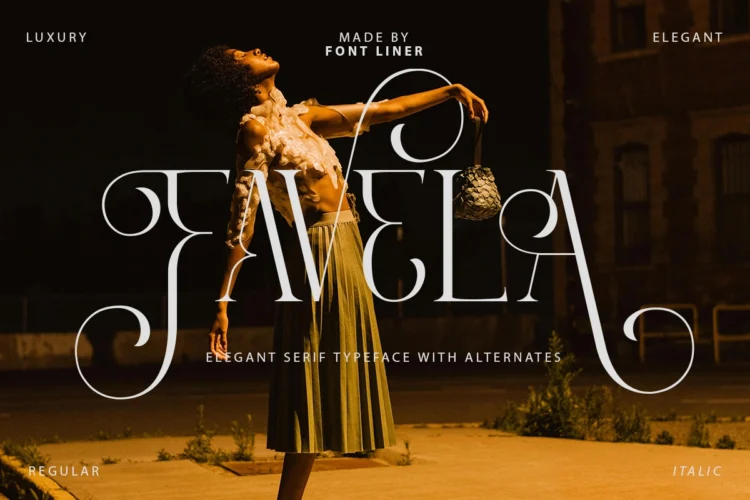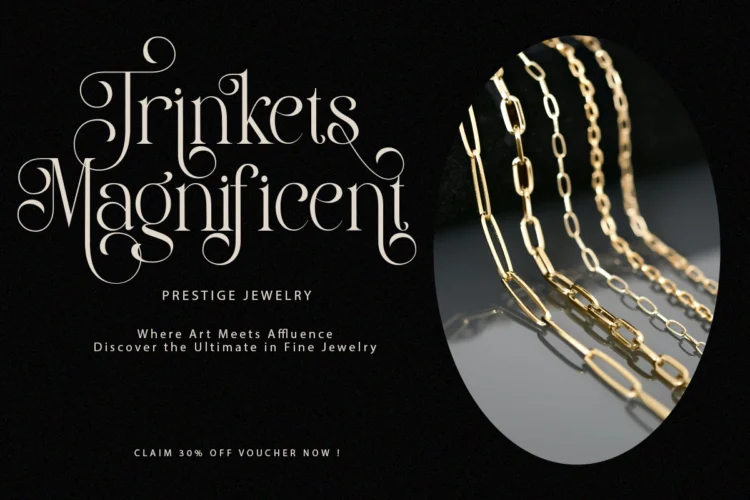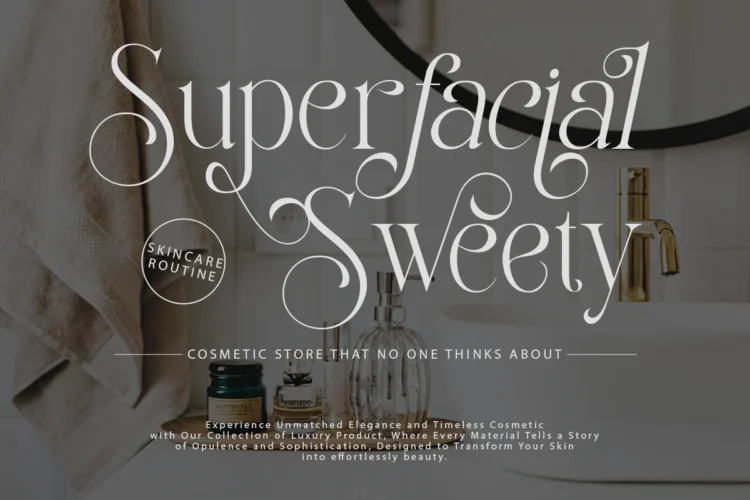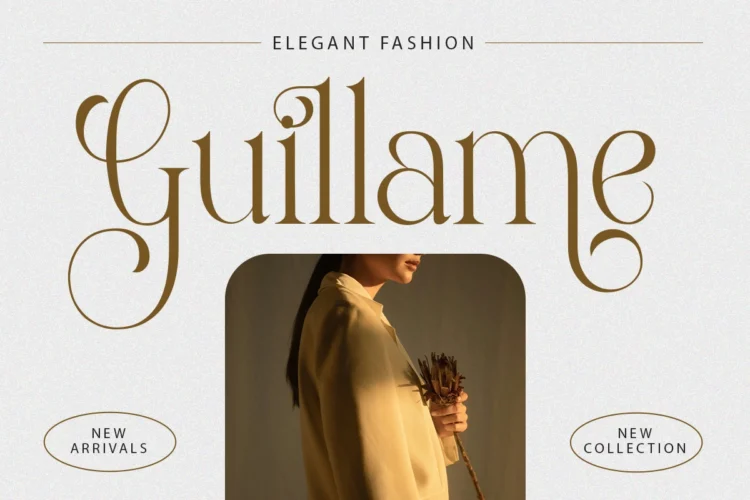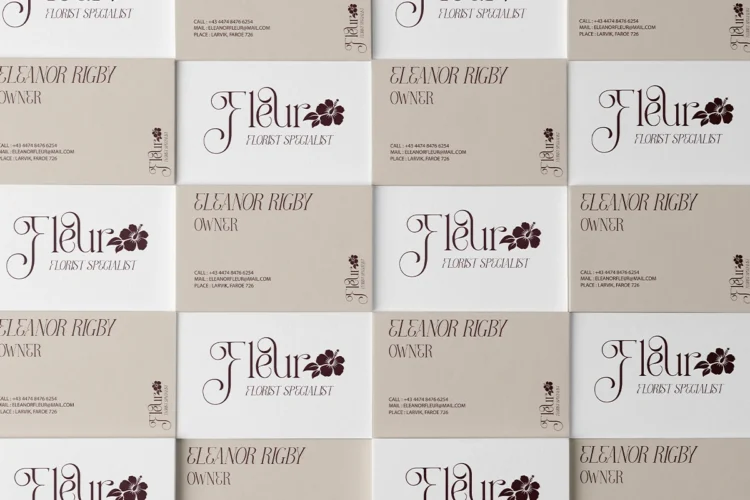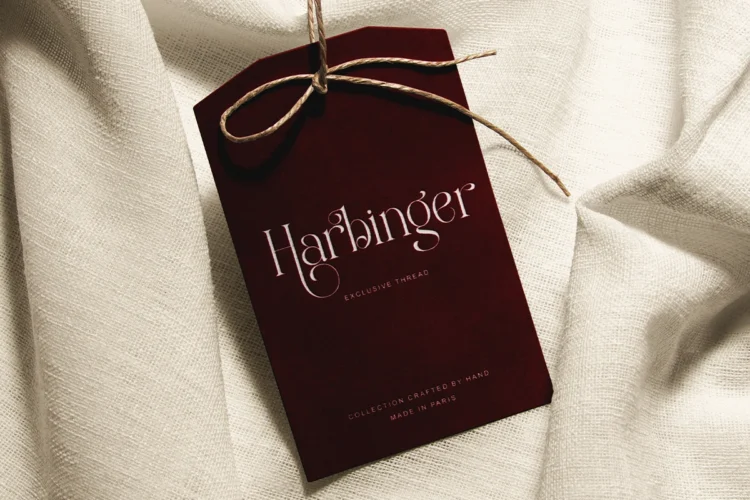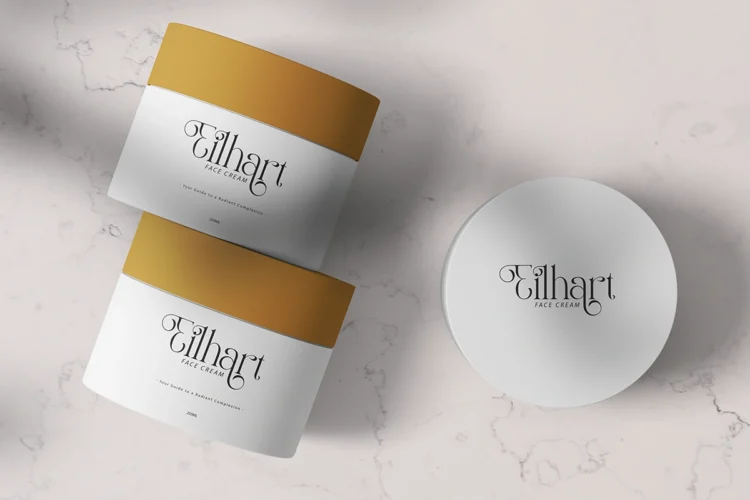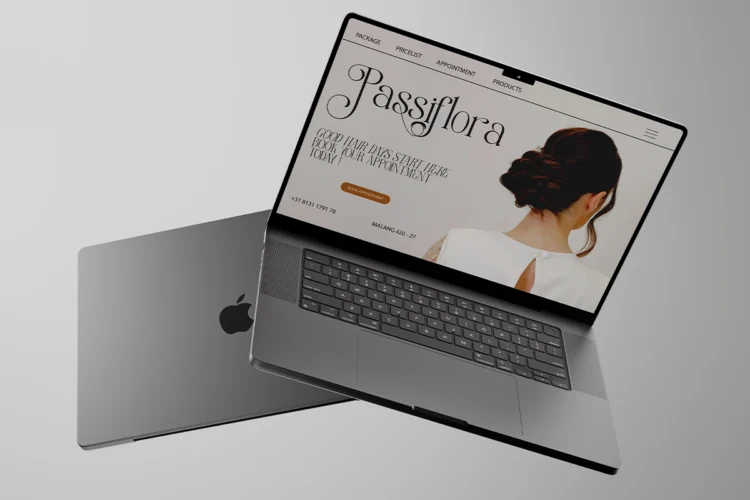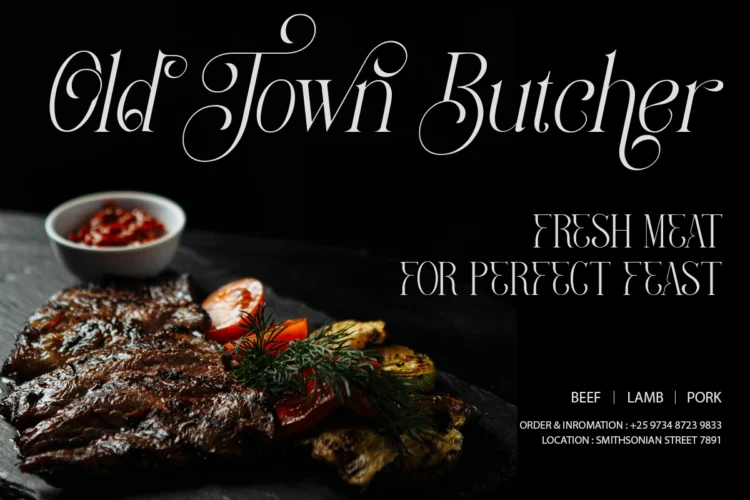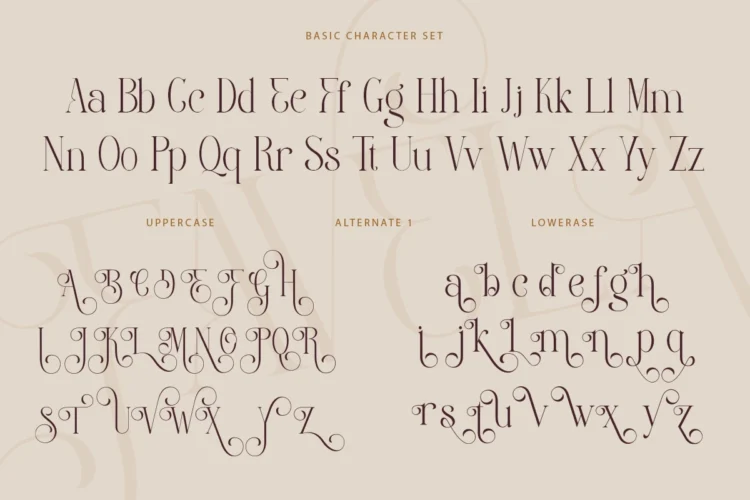
Favela elegant serif typeface. Favela has many stylish alternates with swashes that can make your lettering / logotype become more attractive. The clean and neat of a serif combined with the swirl swashes makes this font one of a kind! Very suitable for magazine, headline, website, ads, product package and all type of design project you have. What Included : - Favela Regular (TTF,OTF,WOFF) - Favela Italic (TTF,OTF,WOFF) - 70+ Stylistic Alternates - Multilingual Support - PUA Encoded Thanks for checking out my font. I really hope you enjoy using it! If you have any questions I'd be more than happy to answer them, just send me a message! Font Liner